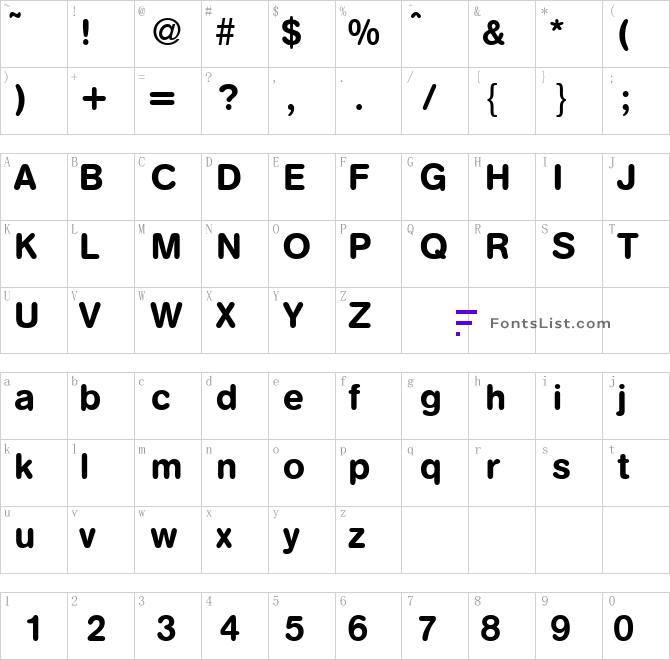
- Font Name:AkzentRoundedMedium
- Subfamily:Alts:AkzentRoundedMedium-Regular
- Full Name:AkzentRoundedMedium-Regular
- PostScript:AkzentRoundedMedium-Regular
AkzentRoundedMedium-Regular.ttf is a very beautiful artistic font, AkzentRoundedMedium-Regular.ttf is widely used in the design and printing of various books and pictures,AkzentRoundedMedium-Regular.ttf has a strong visual impact,AkzentRoundedMedium-Regular.ttf is a commonly used font in newspapers, magazines and books, and is used in posters, e-commerce Poster design, store design, logo design, font design and other fields.AkzentRoundedMedium-Regular.